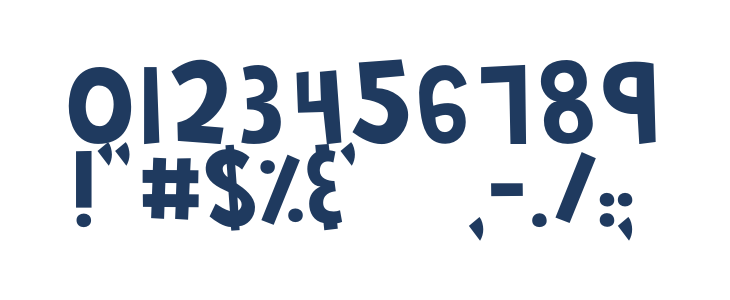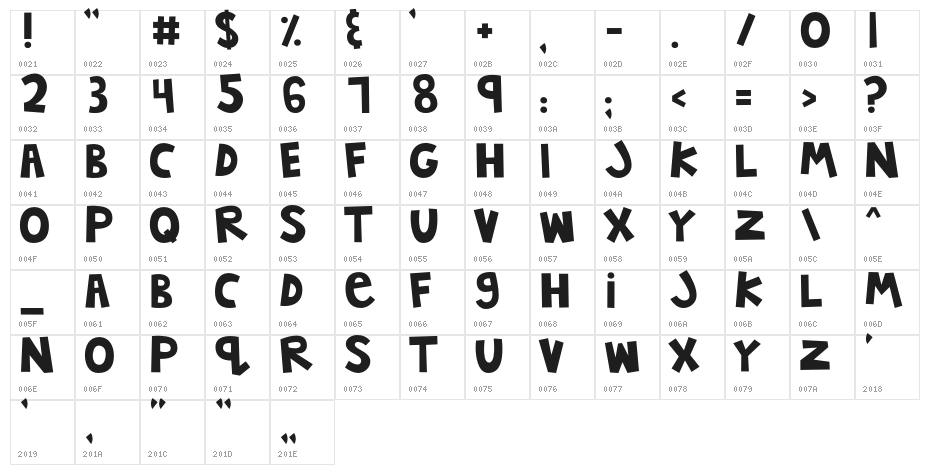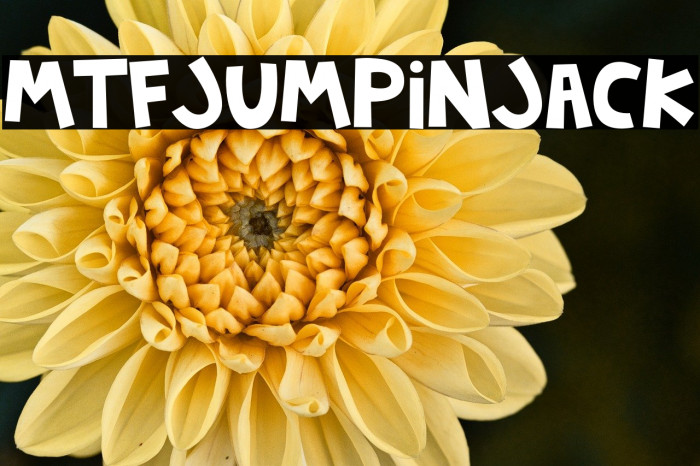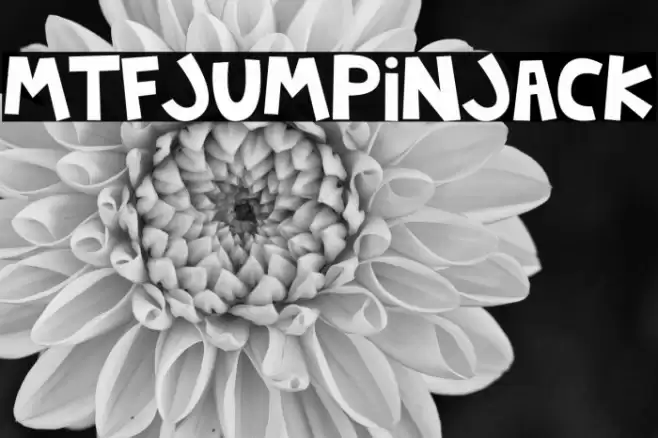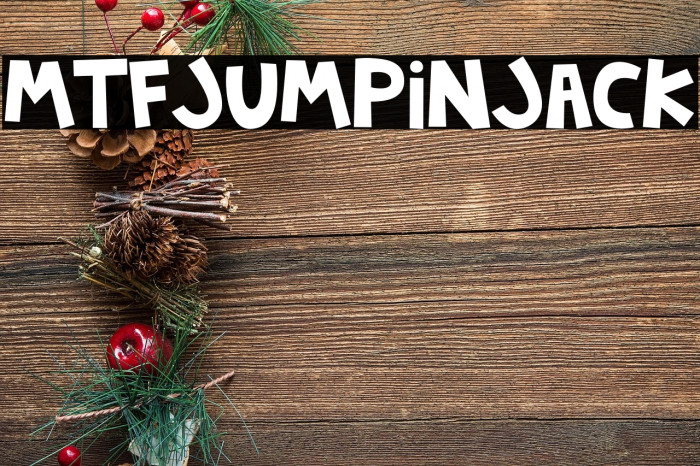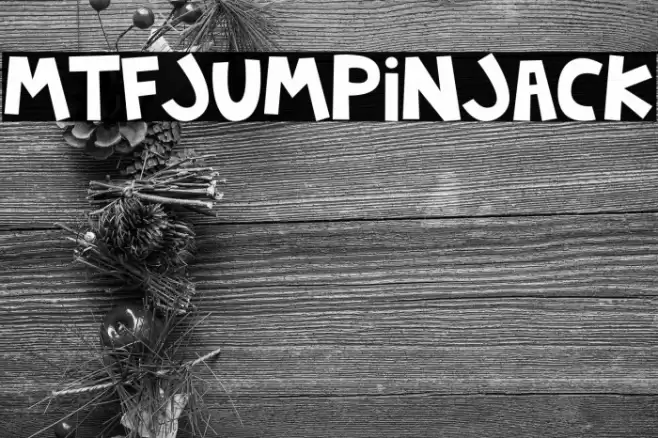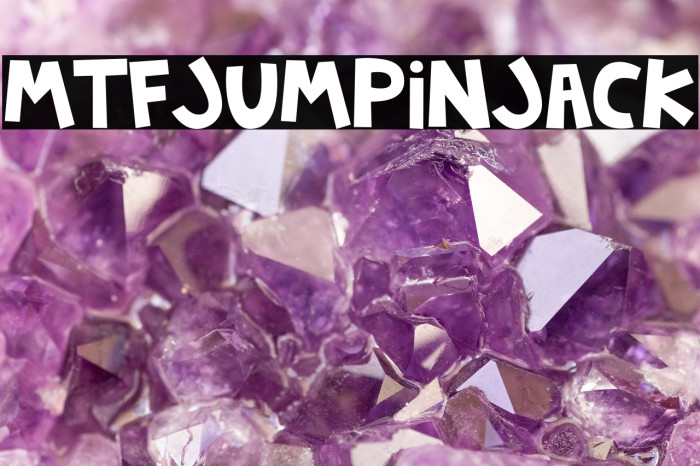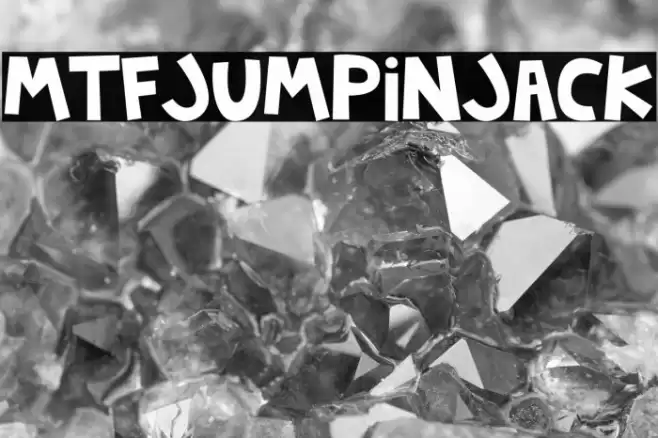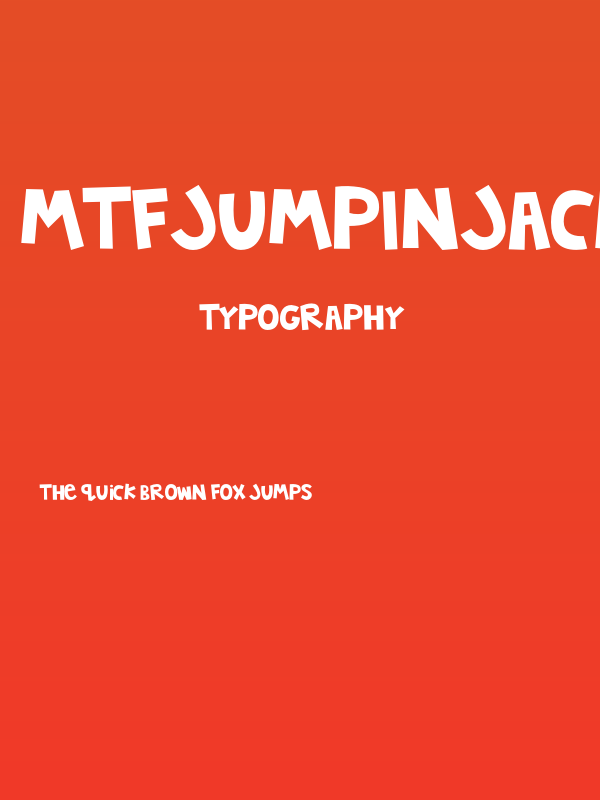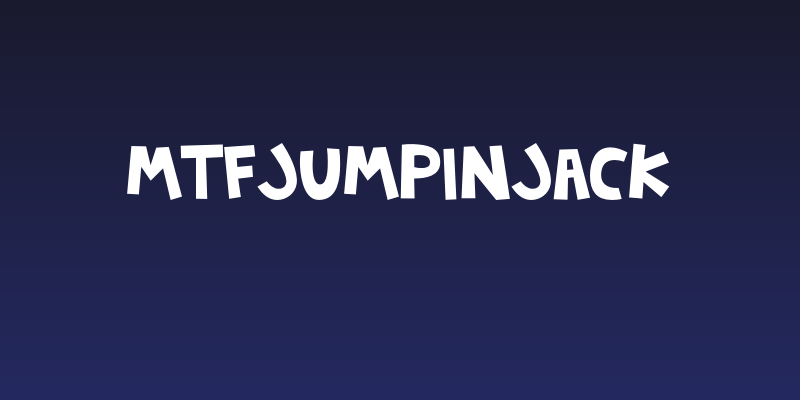
MTFJumpinJack Font
MTFJumpinJack Description
This font features a playful and energetic style, characterized by its bold and slightly irregular letterforms. The uppercase and lowercase letters exhibit a whimsical, hand-drawn appearance, with exaggerated curves and angles that give it a lively and dynamic feel. The numbers and special characters maintain this playful aesthetic, making the font suitable for creative and informal applications. Its boldness ensures high visibility, while the unique shapes add a touch of fun and personality.
| Overall Style | Playful, Energetic |